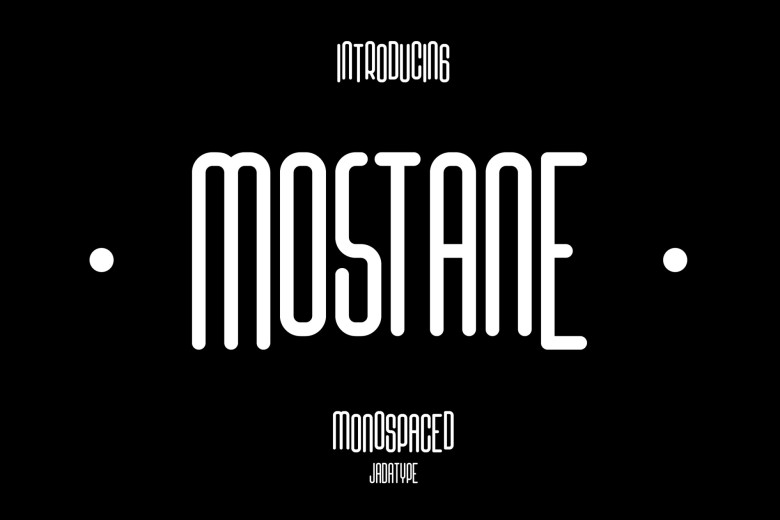
Mostane Font
Mostane comes in both monospaced and serif versions for social media and branding applications, containing all standard English letters, punctuation marks and numbers as well as several accents to support multilingualism.
Mostane Display Font